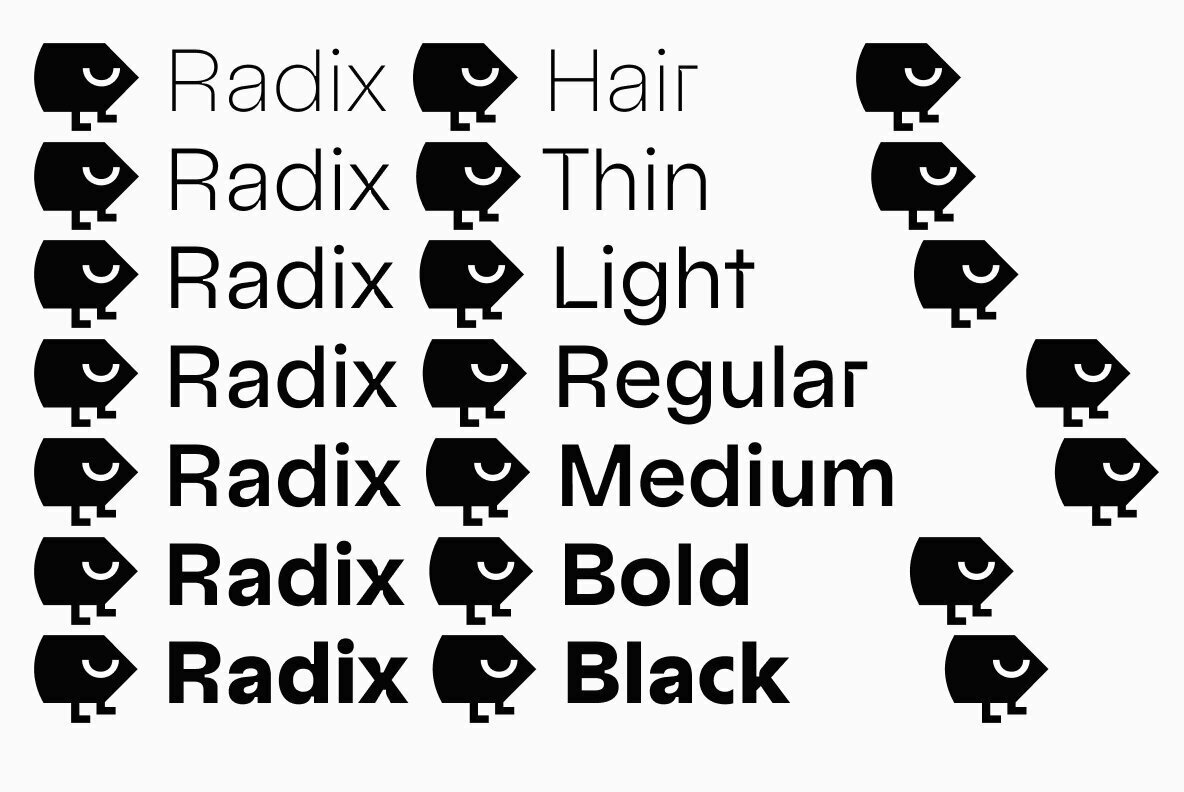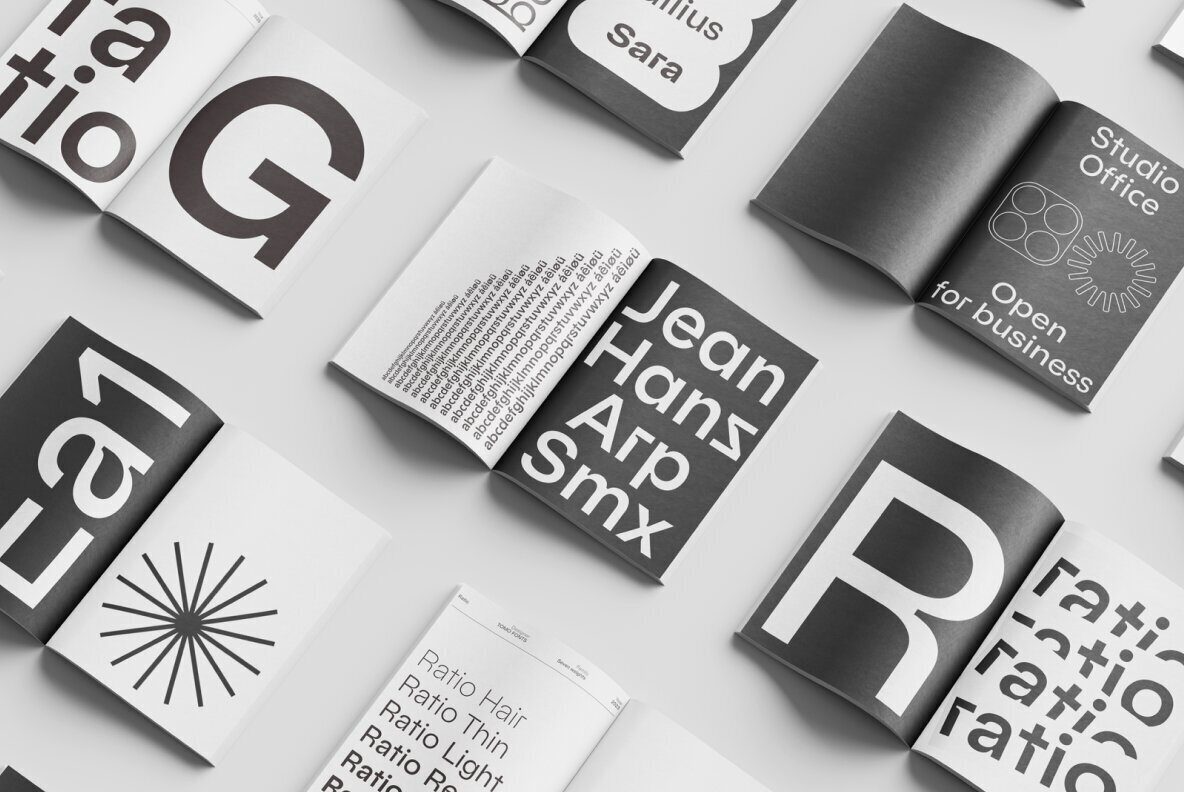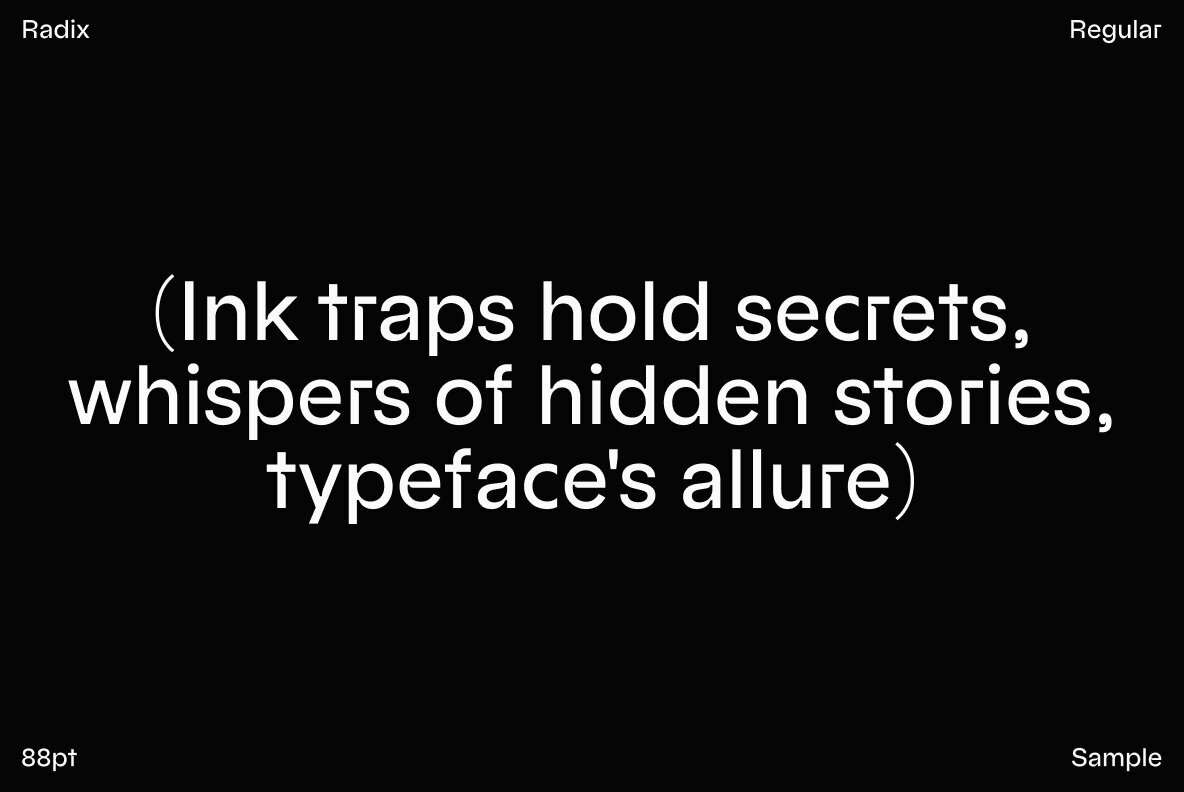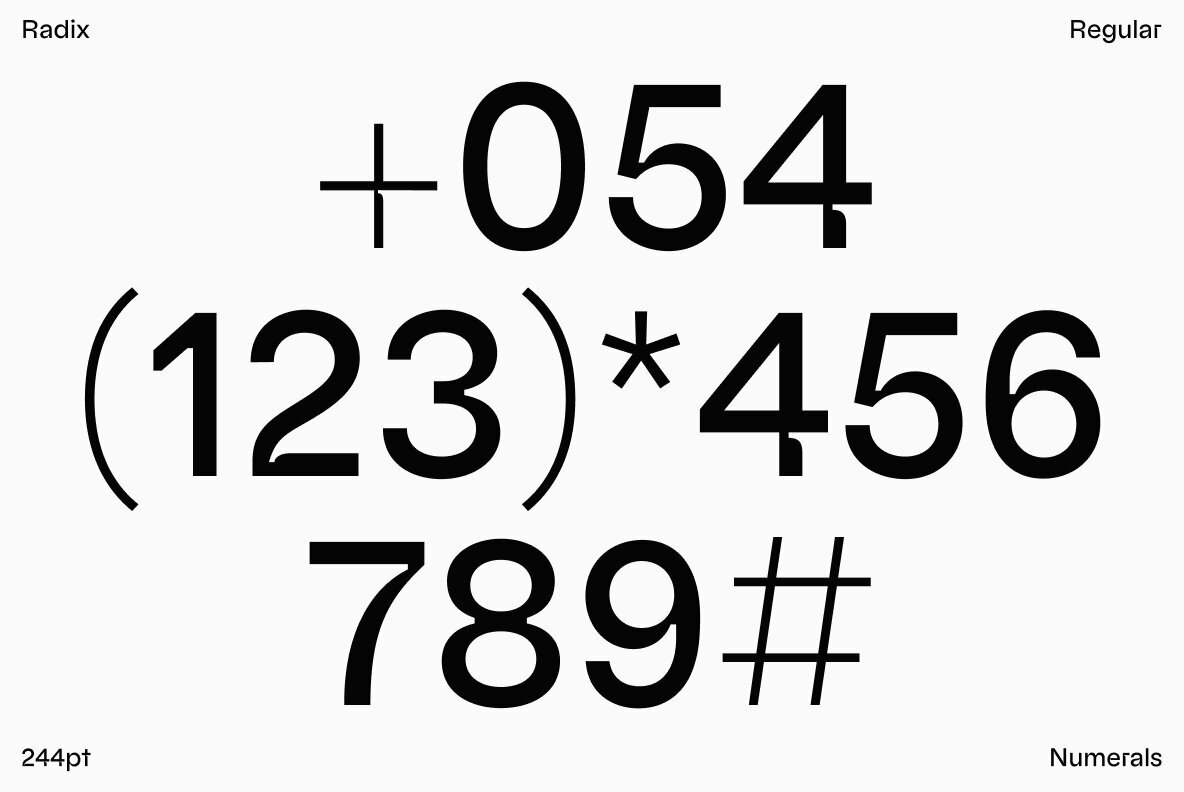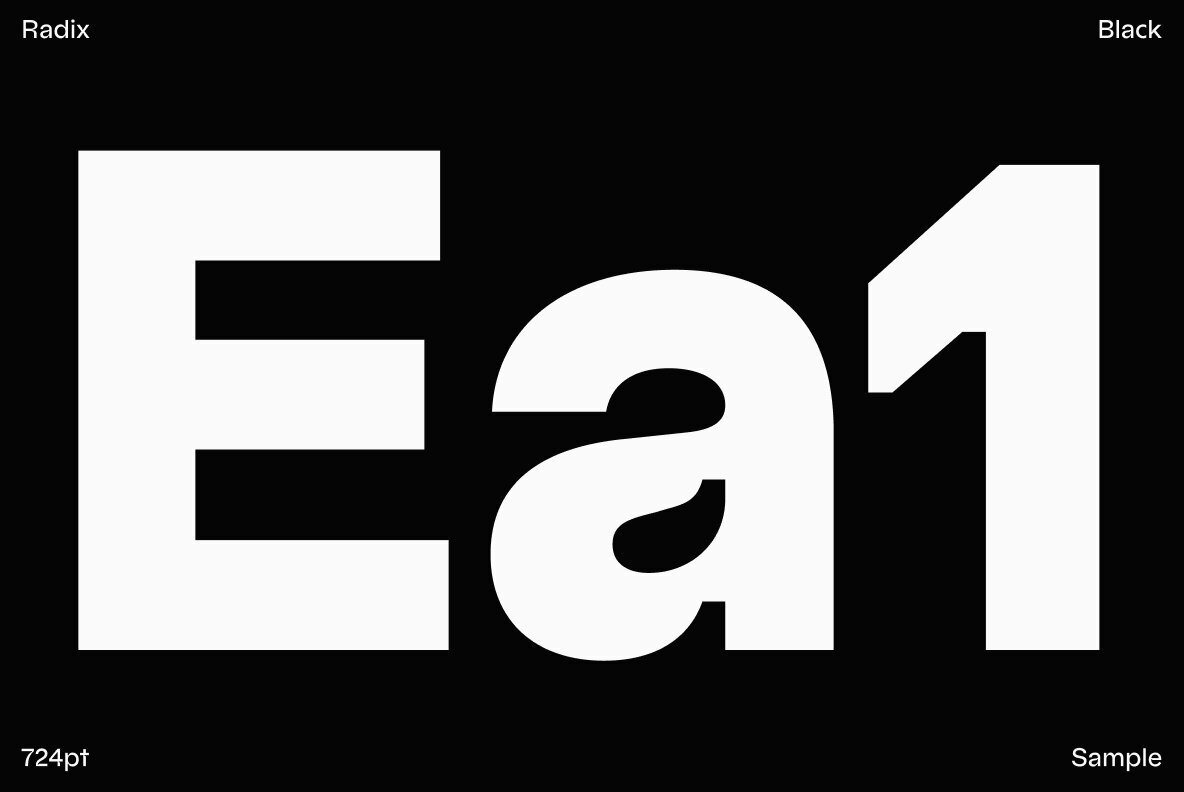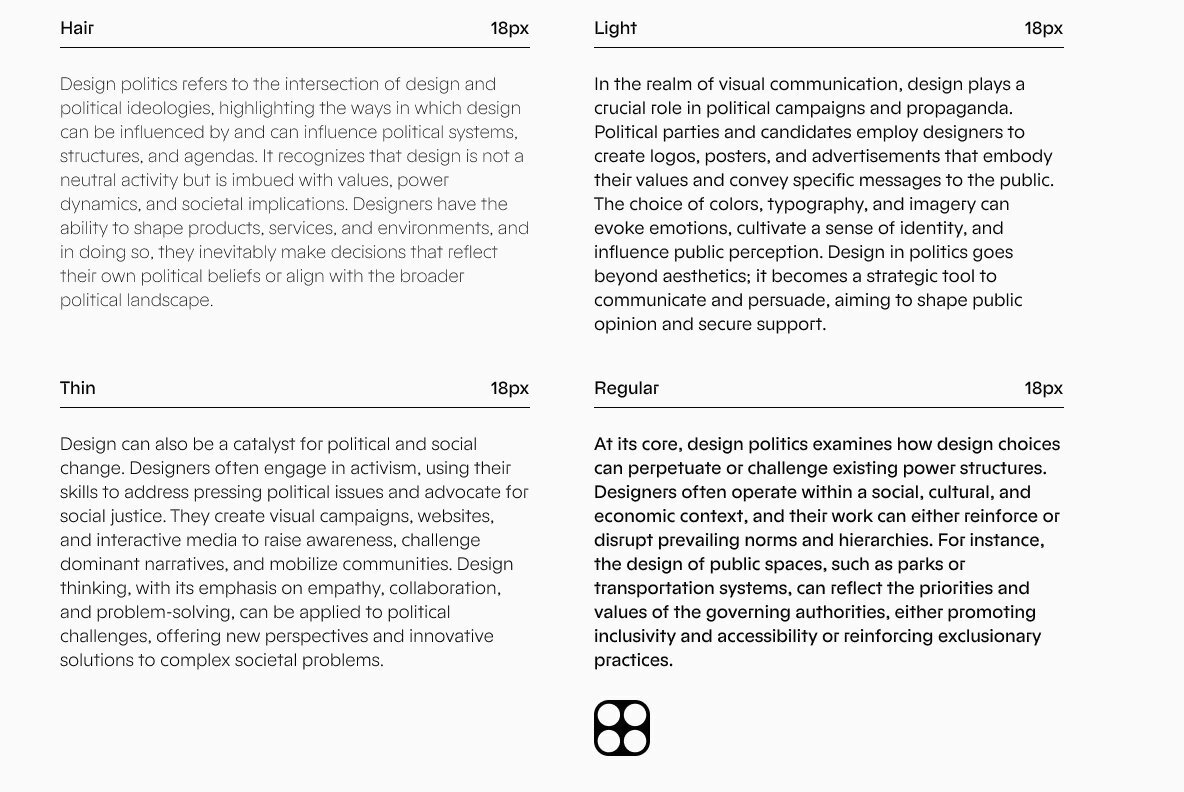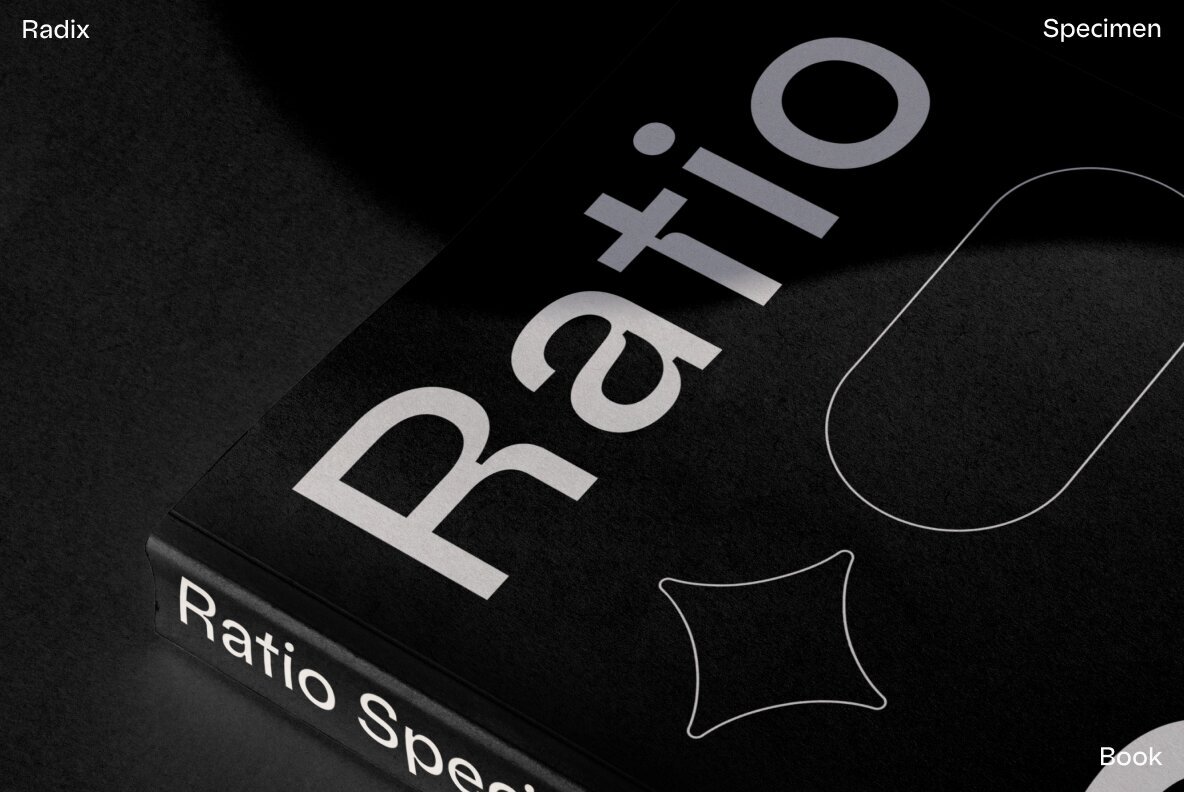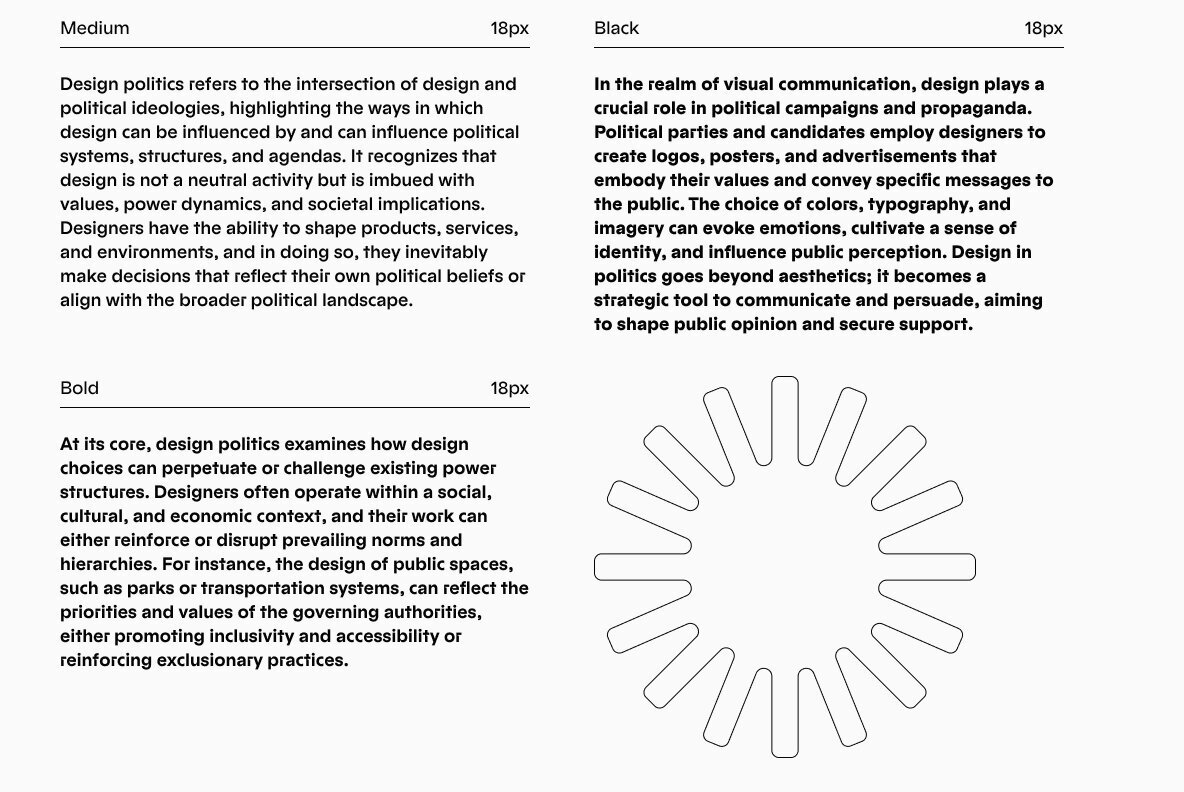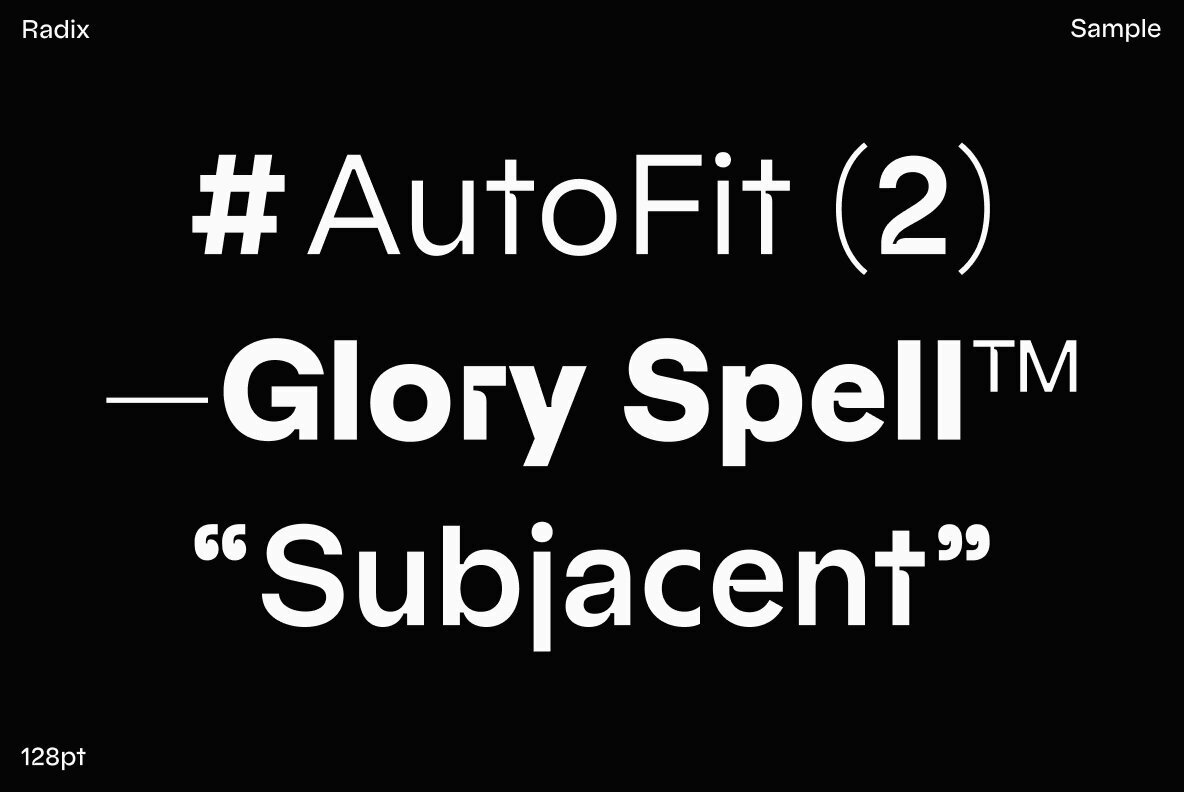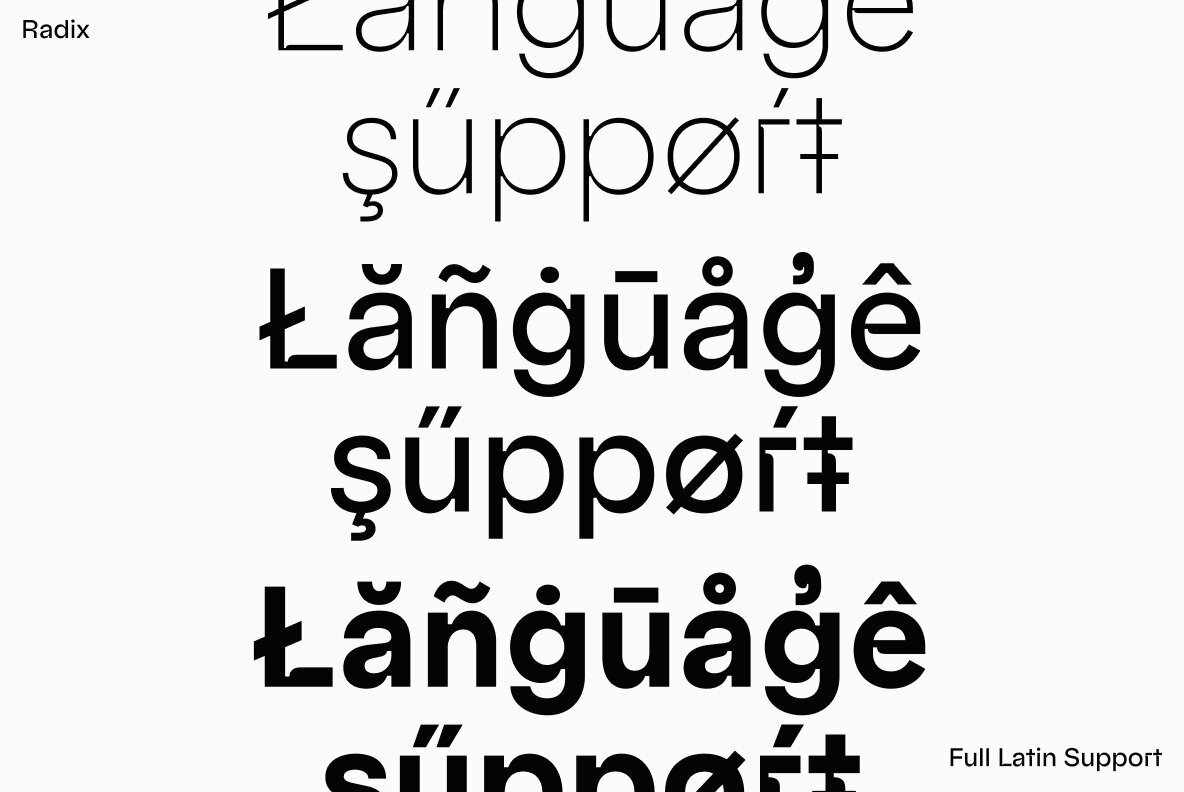
Radix Font
Radix gracefully merges the enduring charm of mid-century modernism with the captivating allure of pronounced inktraps. Inspired by the clean lines and geometric aesthetics of the Bauhaus movement, as well as the distinctive lowercase forms of Futura, this typeface embodies a harmonious fusion of classic and contemporary design. Featuring seven (7) weights, Radix showcases an extensive collection of spurless characters that delicately embrace and enhance the inktraps, resulting in a visually captivating and balanced composition. Complementing its versatility, the typeface offers alternate glyphs accessible through opentype stylistic sets, further expanding its expressive potential for any design project.